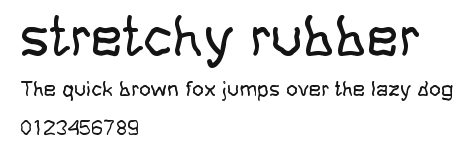
About stretchy rubber.ttf
stretchy rubber.ttf is a modern, elegant sans-serif font designed for ultimate readability and visual harmony. Perfect for branding, headlines, web design, and print materials.